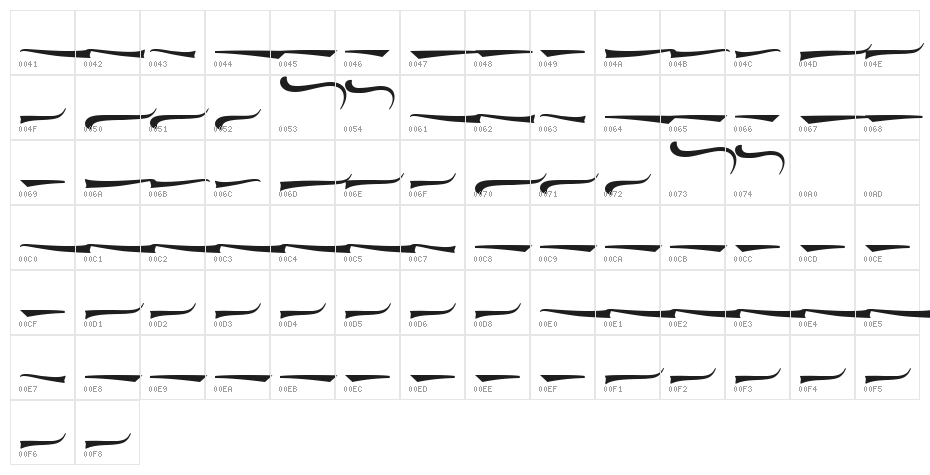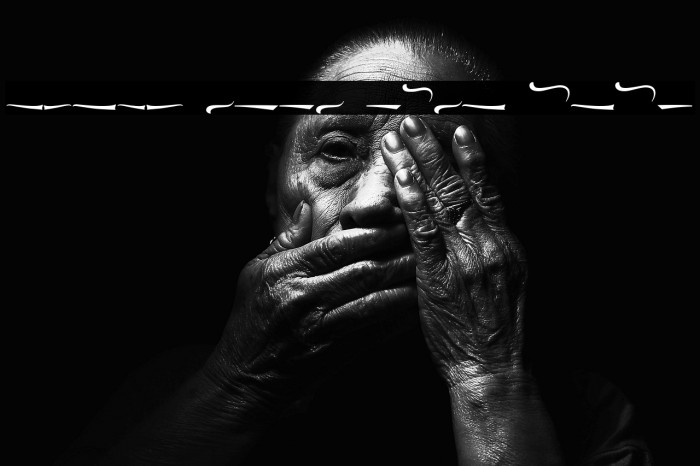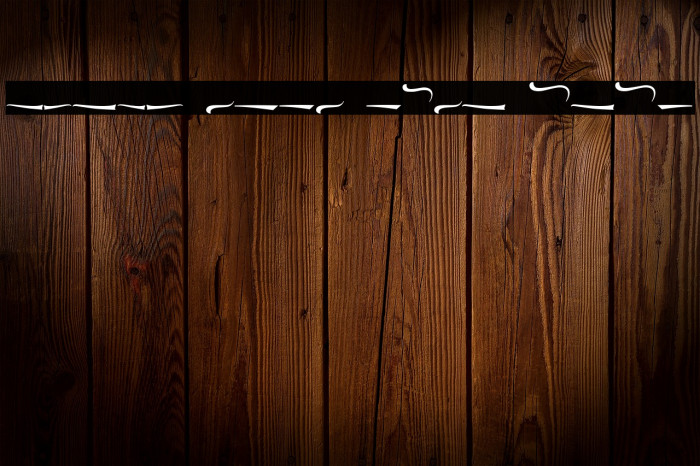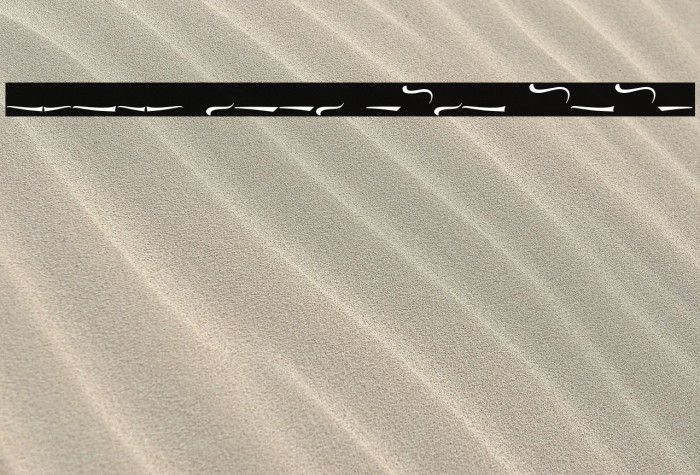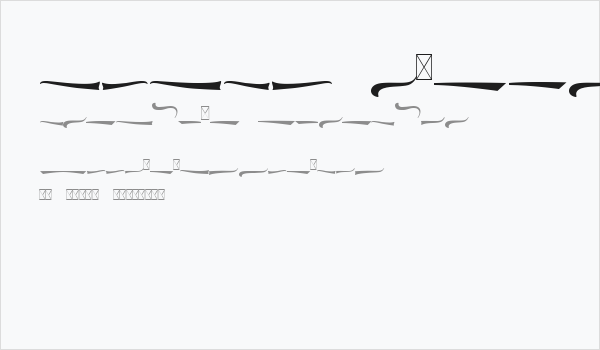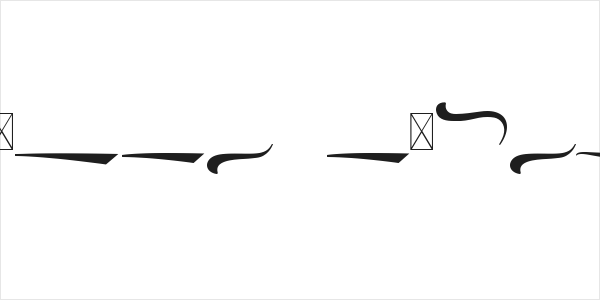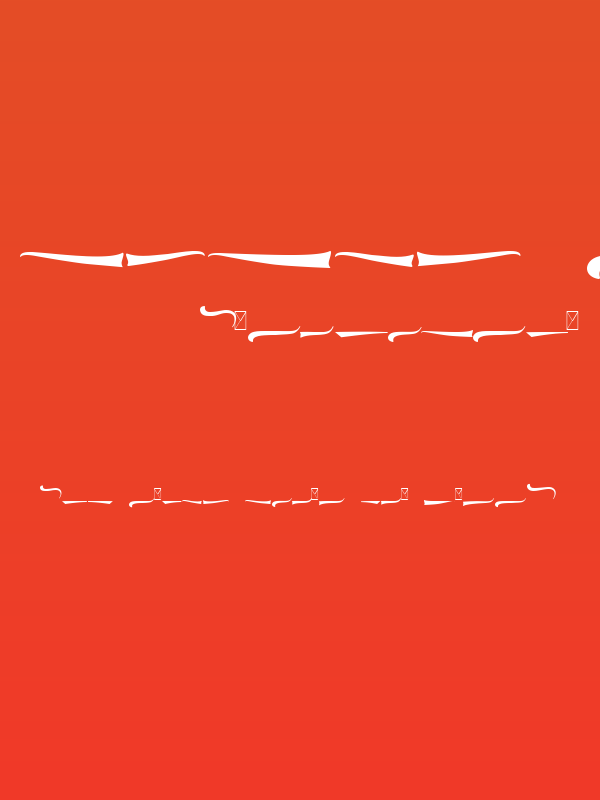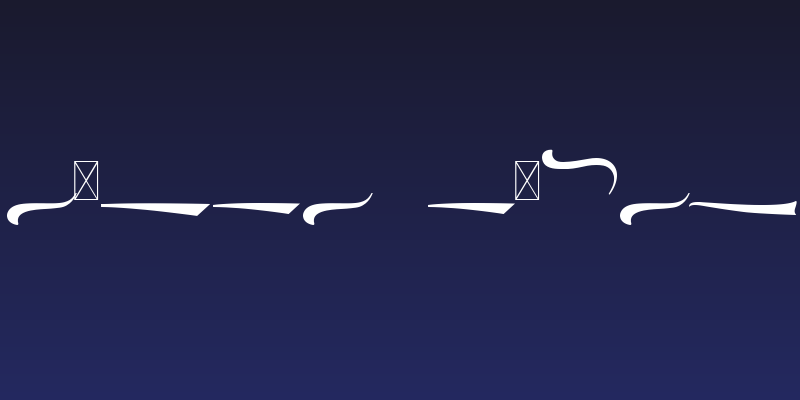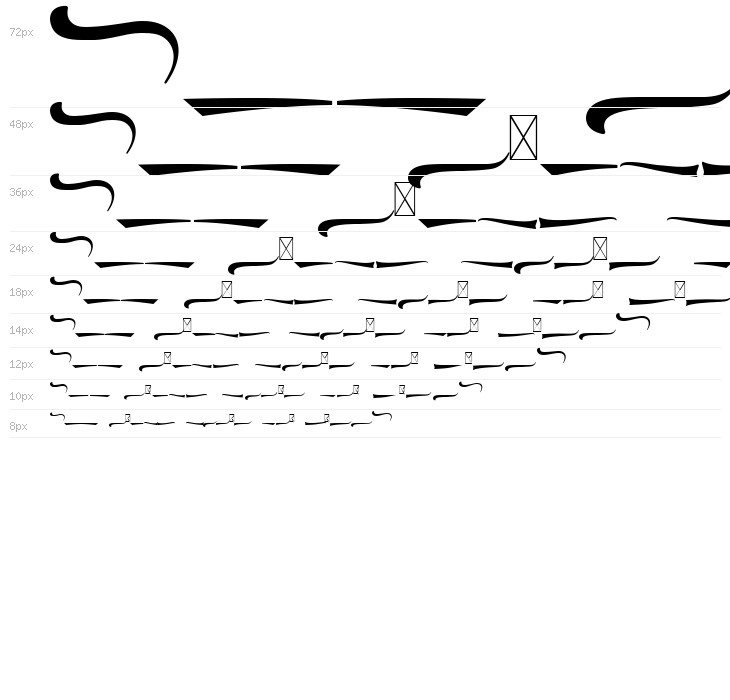
Black Ryder Extra Swash Font
Black Ryder Extra Swash Description
This is a decorative font featuring elaborate swashes and flourishes. The design emphasizes elegance and sophistication, with each character adorned with extended, flowing strokes that create a sense of movement and grace. The font's style is reminiscent of calligraphy, with a modern twist that makes it suitable for contemporary designs. The strokes are bold and confident, yet maintain a delicate balance, ensuring readability while adding a touch of flair. This font is ideal for projects that require a touch of luxury and artistic expression.
WidthExpanded
Use CaseLogos, Headlines, Artistic projects
Proposed ProjectsIdeal for wedding invitations, luxury branding, artistic posters, and elegant packaging designs.